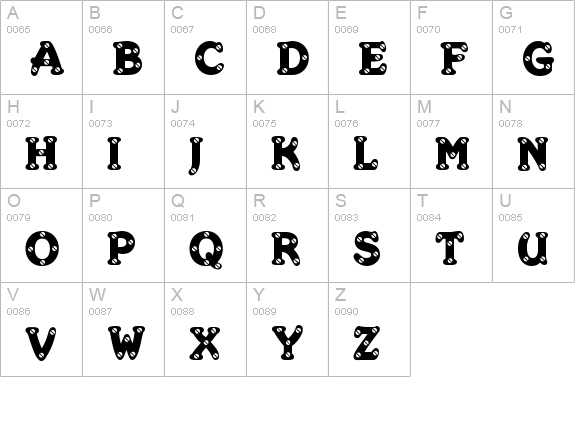
Merkin Skroo Font Details
Merkin Skroo font is a versatile and modern typeface that exudes creativity and flair. With its unique combination of sleek lines and playful curves, Merkin Skroo adds a touch of whimsy to any design project. This free font is perfect for use in branding, advertising, signage, and more. Merkin Skroo is freely available to download at FontsMarket.com, making it easily accessible for designers and creatives looking to add a fresh and exciting element to their work. Whether you're designing a logo, creating a poster, or crafting a website, Merkin Skroo's distinctive style is sure to make a bold statement. Elevate your designs with this eye-catching font today!